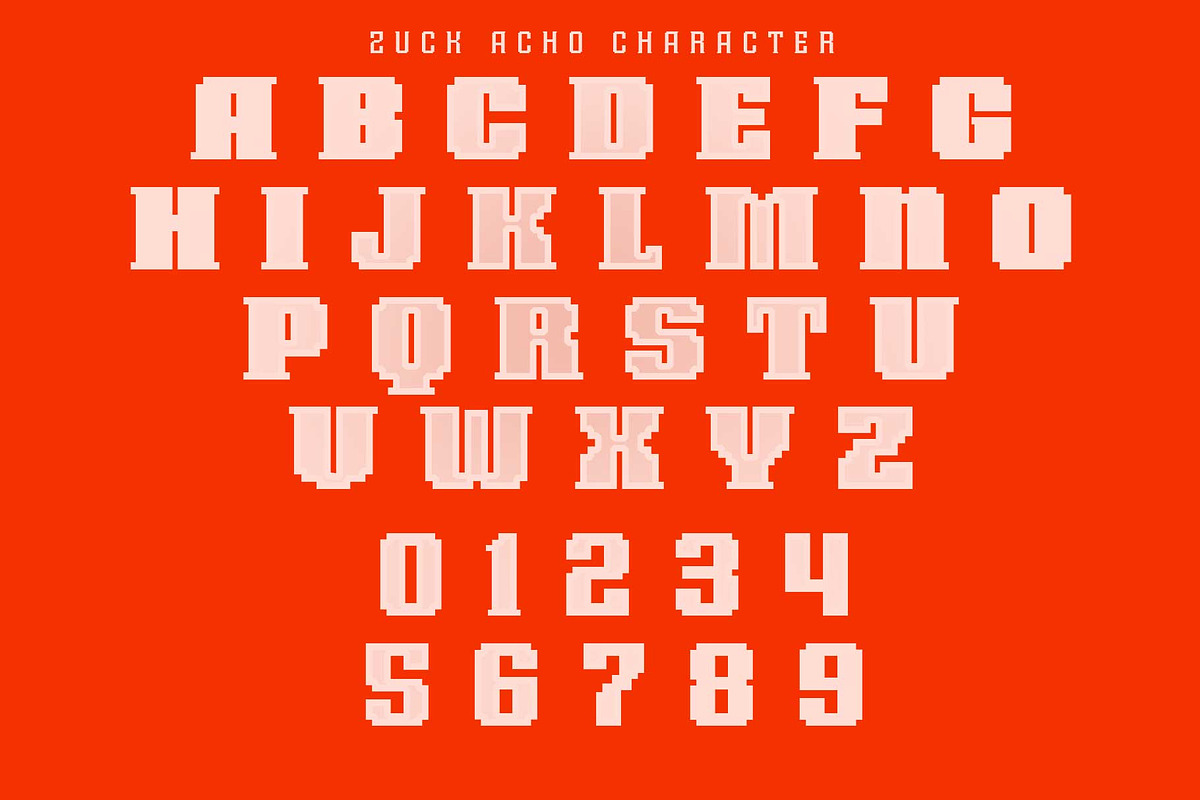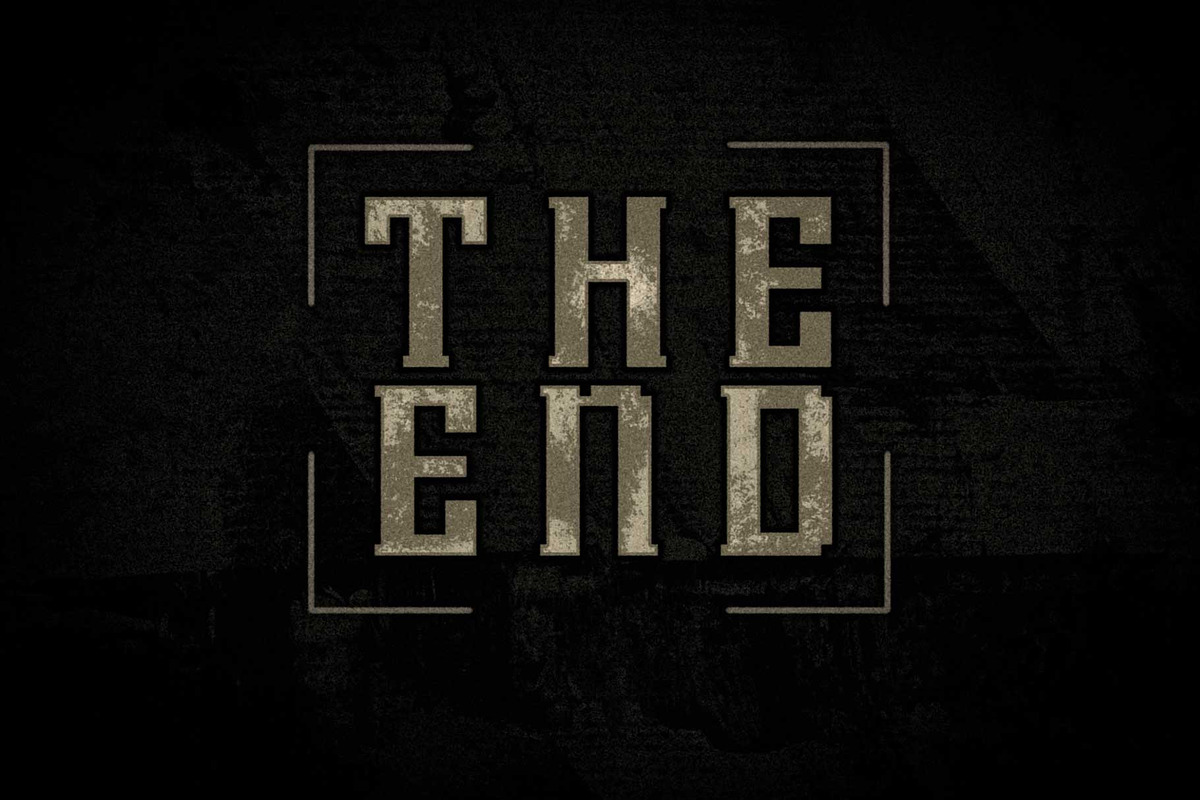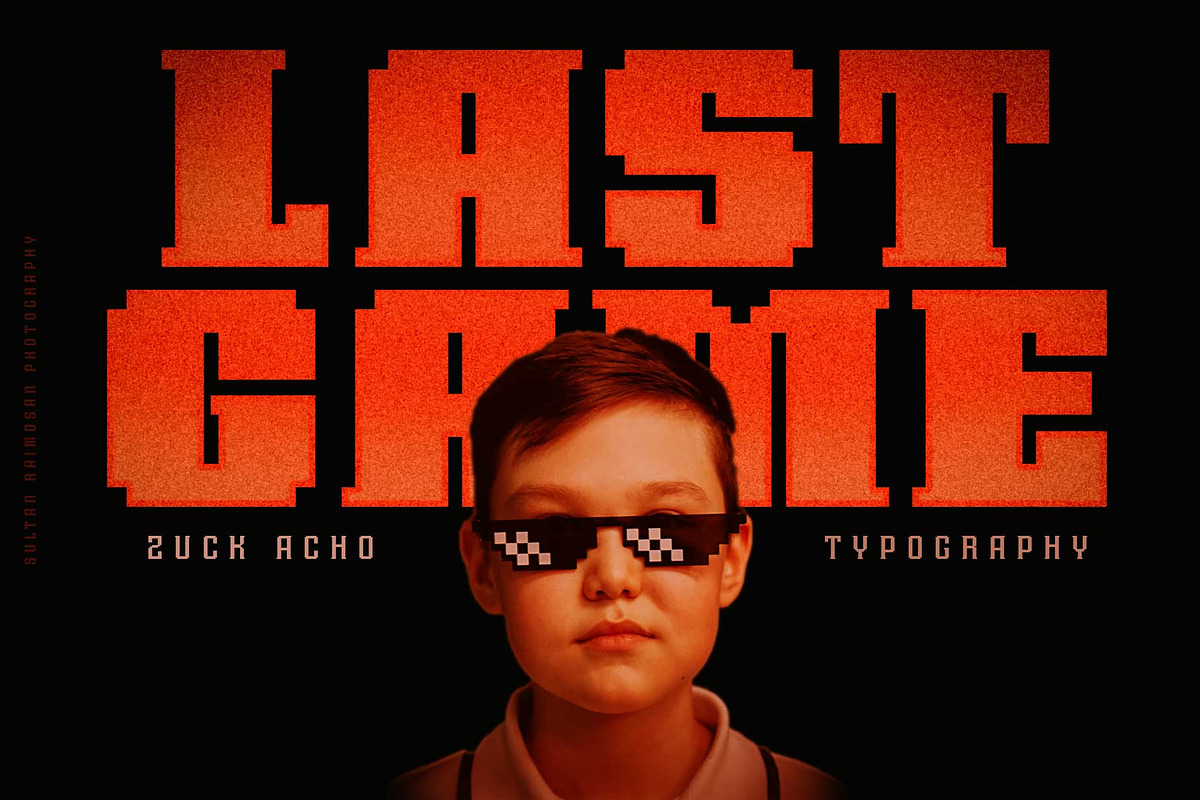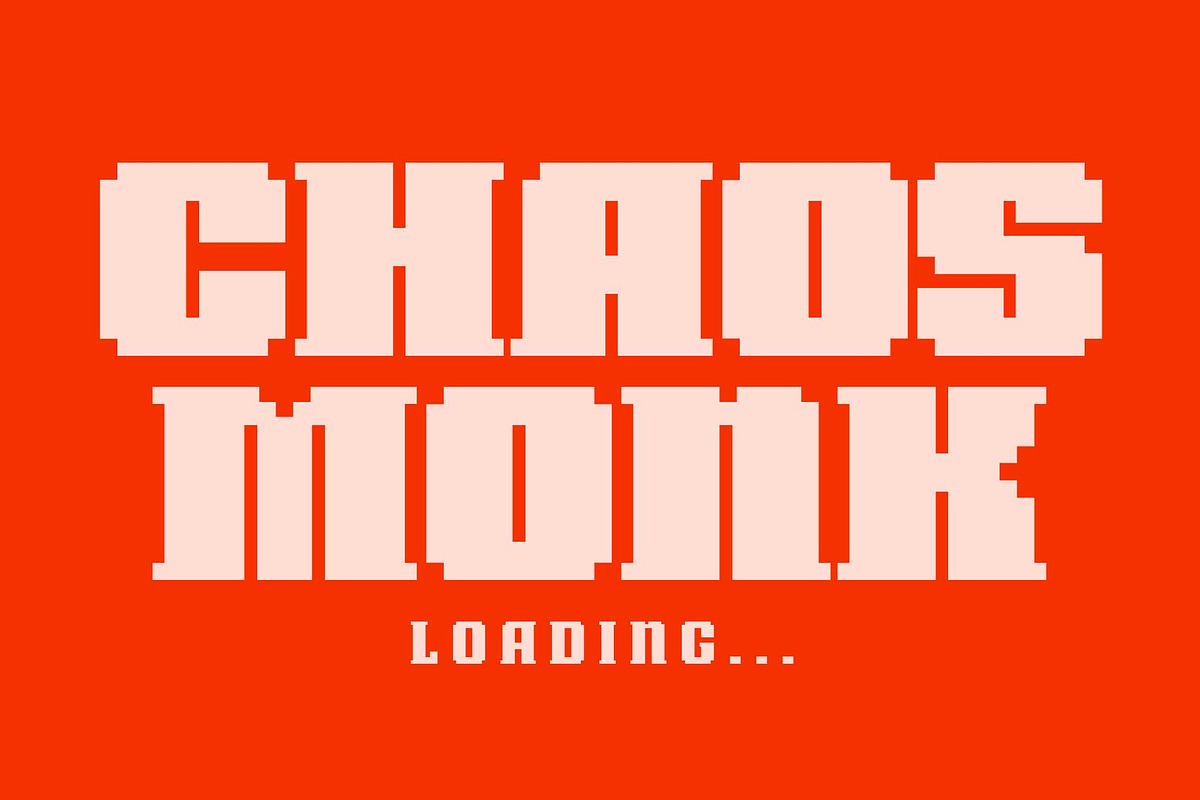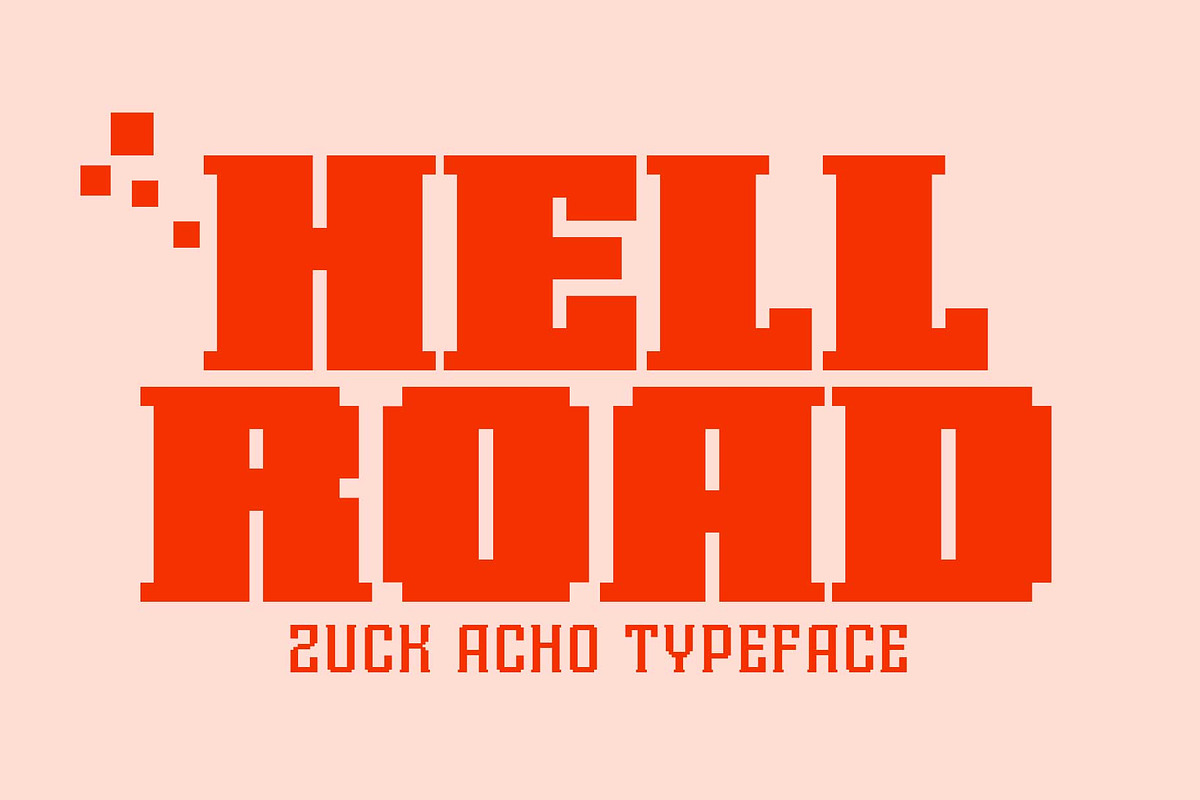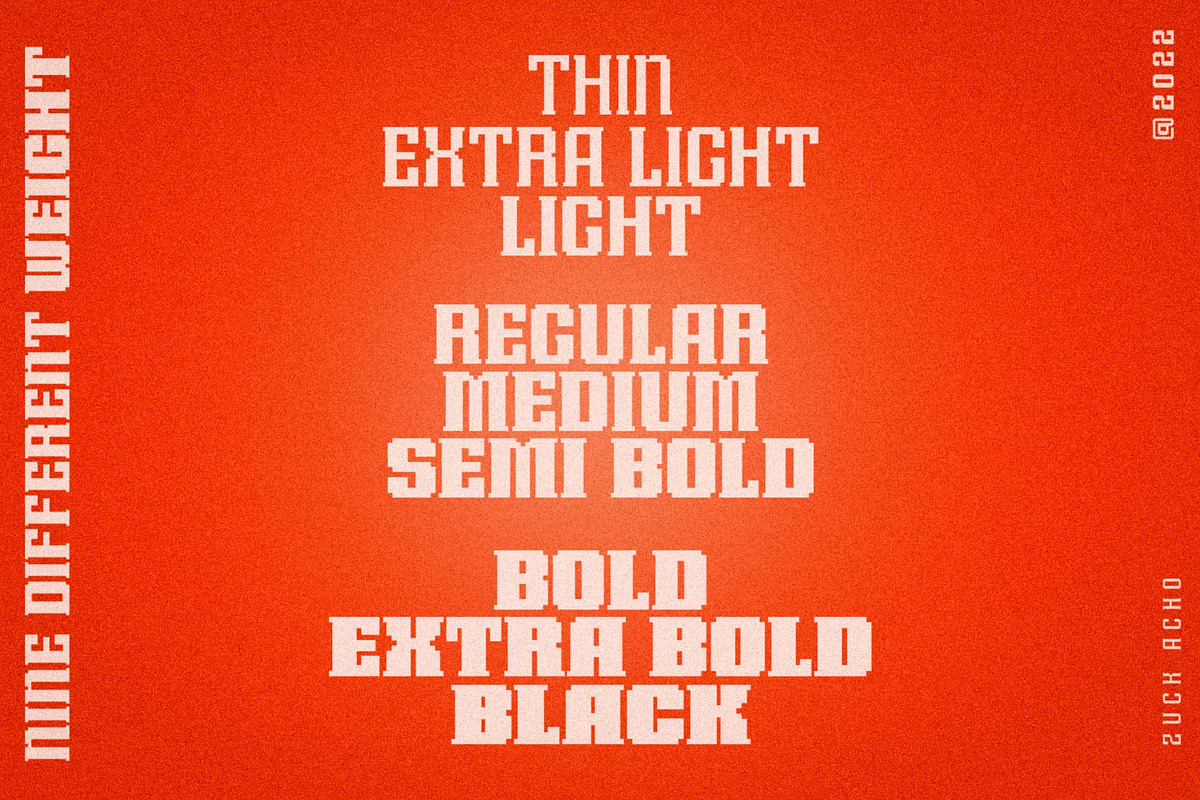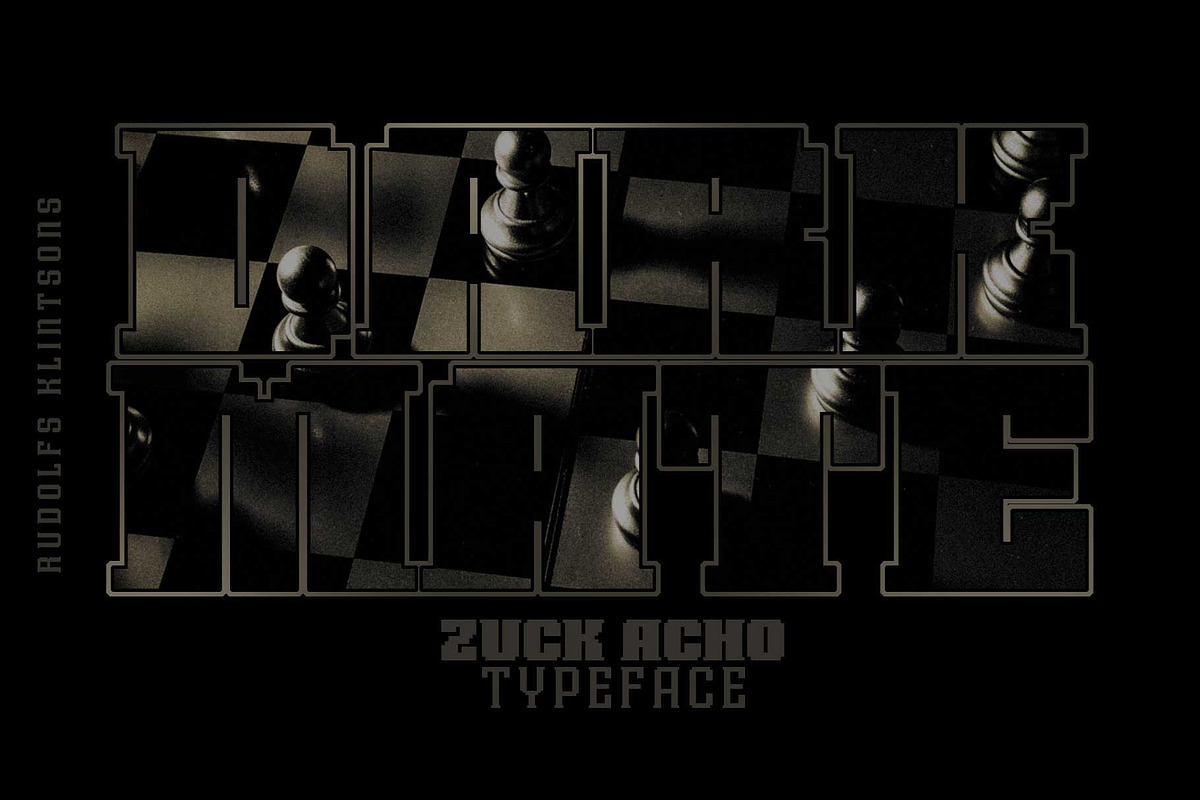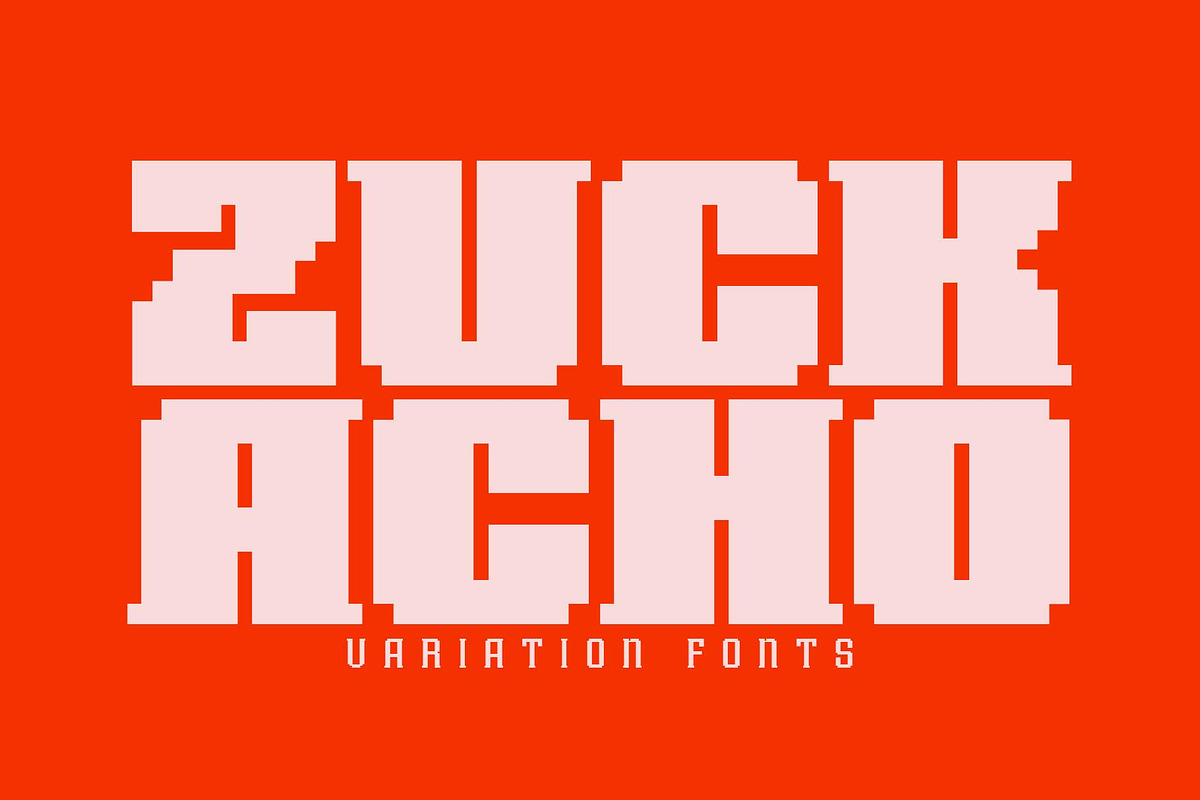
Zuck Acho
Hello friends, on this occasion I would like to introduce a font with a unique style, namely a touch of pixels on each glyph, of course with different variations will be very helpful and add new nuances to each of your works. try and get it right away.